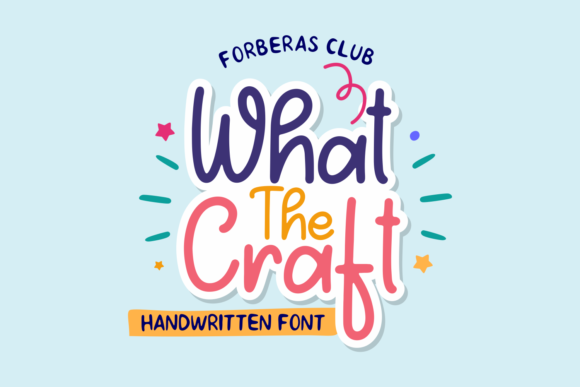
What the Craft Font: Elevate Your Branding with Elegance and Sophistication
In the world of typography, fonts play a crucial role in shaping the identity of a brand. A well-crafted font can elevate your branding, making it stand out from the crowd and leave a lasting impression on your audience. Introducing “What the Craft,” a fancy and elegant handcrafted font designed to impress your audience and make your branding shine.
Key Features of What the Craft Font
- Elegant and Wonderful: What the Craft font is carefully crafted to bring an air of elegance and sophistication to your projects.
- Handcrafted with Love: Each letter is uniquely designed with a beautiful touch, making your designs come alive.
- Smooth and Compatible: This font is perfect for various applications, including cut machines like Cricut and Silhouette.
- Versatile: Use What the Craft font for headings, logos, ads, printed quotes, packaging, websites, or social media branding.
Benefits of Using What the Craft Font
Using What the Craft font in your projects offers numerous benefits. Its elegant and sophisticated design ensures that your branding stands out, making it more memorable to your audience. The font’s versatility allows you to use it across various platforms, from print materials to digital applications.
Moreover, What the Craft font is designed to be smooth and compatible with cut machines, making it perfect for crafters and DIY enthusiasts. The font’s unique and beautiful touch adds a personal touch to your designs, setting them apart from generic and overused fonts.
How to Use What the Craft Font
What the Craft font can be used in a variety of applications, including:
- Headings and Titles: Add elegance to your headings and titles, making them more attention-grabbing.
- Logos and Branding: Create a memorable brand identity with What the Craft font, perfect for logos, business cards, and letterheads.
- Ads and Marketing Materials: Use What the Craft font to create eye-catching ads, brochures, and flyers that leave a lasting impression.
- Printed Quotes and Art: Add a touch of elegance to your printed quotes, posters, and art pieces.
- Packaging: Elevate your packaging design with What the Craft font, making your products stand out on store shelves.
- Websites and Social Media: Use What the Craft font to create a consistent brand identity across your website and social media platforms.
The Design Process of What the Craft Font
The design of What the Craft font is a testament to the power of handcrafted typography. Each letter is carefully crafted to ensure a unique and beautiful touch, making the font a true masterpiece. The design process involves:
- Research and Inspiration: Gathering inspiration from various sources, including classic typography and modern design trends.
- Sketching and Refining: Sketching and refining each letter to ensure a cohesive and elegant look.
- Digitalization: Converting the sketches into digital format, ensuring compatibility with various applications.
- Testing and Quality Control: Testing the font in various applications to ensure its quality and performance.
- Web Applications: Websites, social media platforms, and online marketing materials.
- Print Materials: Brochures, flyers, posters, and other print materials.
Tips for Using What the Craft Font
To get the most out of What the Craft font, consider the following tips:
- Experiment with Colors: Try pairing What the Craft font with different colors to create a unique look.
- Mix and Match: Combine What the Craft font with other fonts to create a distinctive look.
- Pay Attention to Spacing: Adjust the spacing between letters to ensure a cohesive look.
- Use it Consistently: Use What the Craft font consistently across all your branding materials to create a strong brand identity.
In conclusion, What the Craft font is an elegant and sophisticated handcrafted font designed to elevate your branding and make your projects stand out. Its unique and beautiful touch, smooth design, and versatility make it perfect for various applications. By using What the Craft font, you can create a memorable brand identity that leaves a lasting impression on your audience.